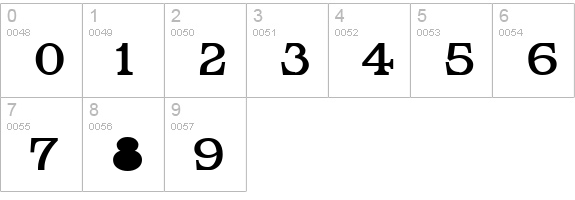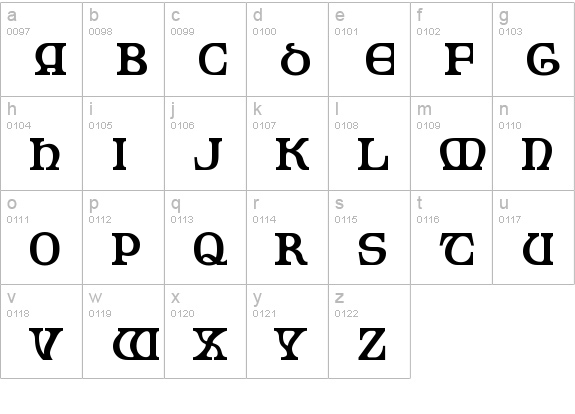
TrudeauSans Font Details
TrudeauSans is a modern and elegant typeface that exudes sophistication and versatility. With its clean lines and balanced proportions, this font is perfect for a wide range of design projects, from branding to editorial design. Whether you're creating a sleek logo or designing a professional website, TrudeauSans will elevate your work to the next level. The best part? TrudeauSans is completely free to download at FontsMarket.com. You can easily access this premium font and enhance your designs without breaking the bank. Don't miss out on the opportunity to add TrudeauSans to your font collection and take your projects to new heights of style and professionalism. Download now and start creating stunning designs with TrudeauSans.